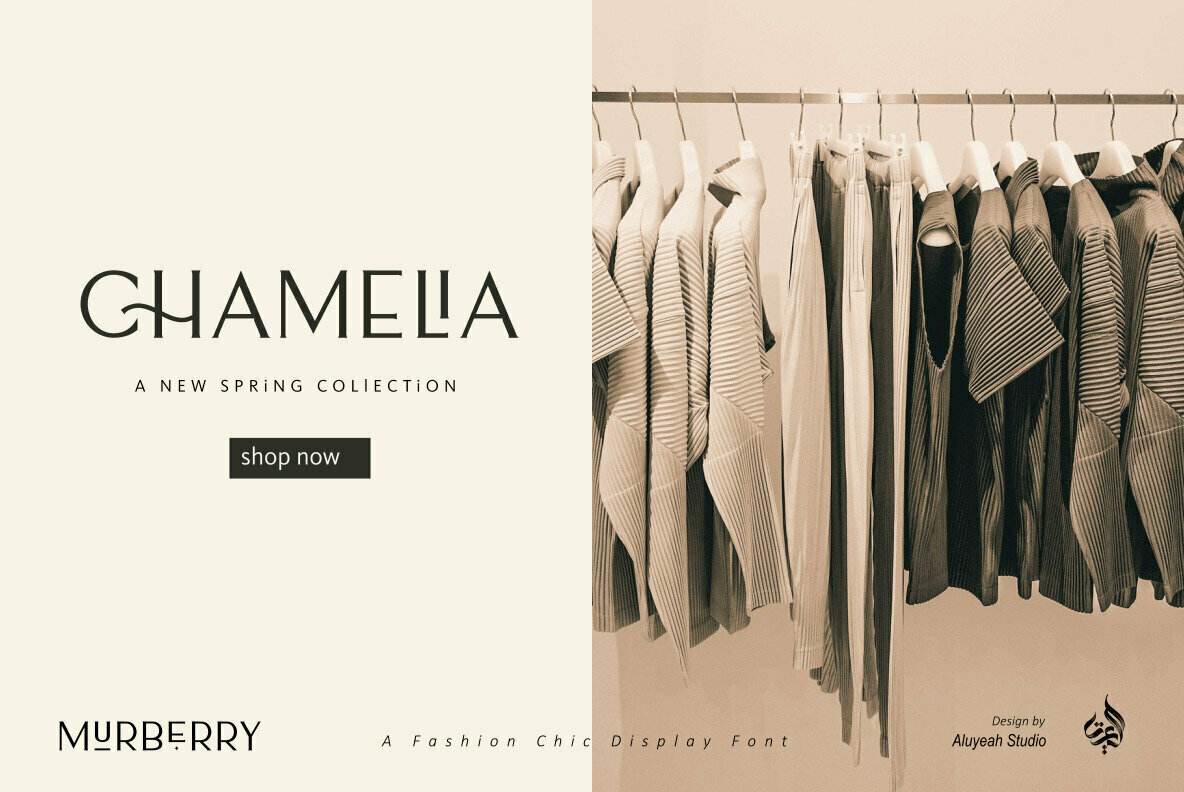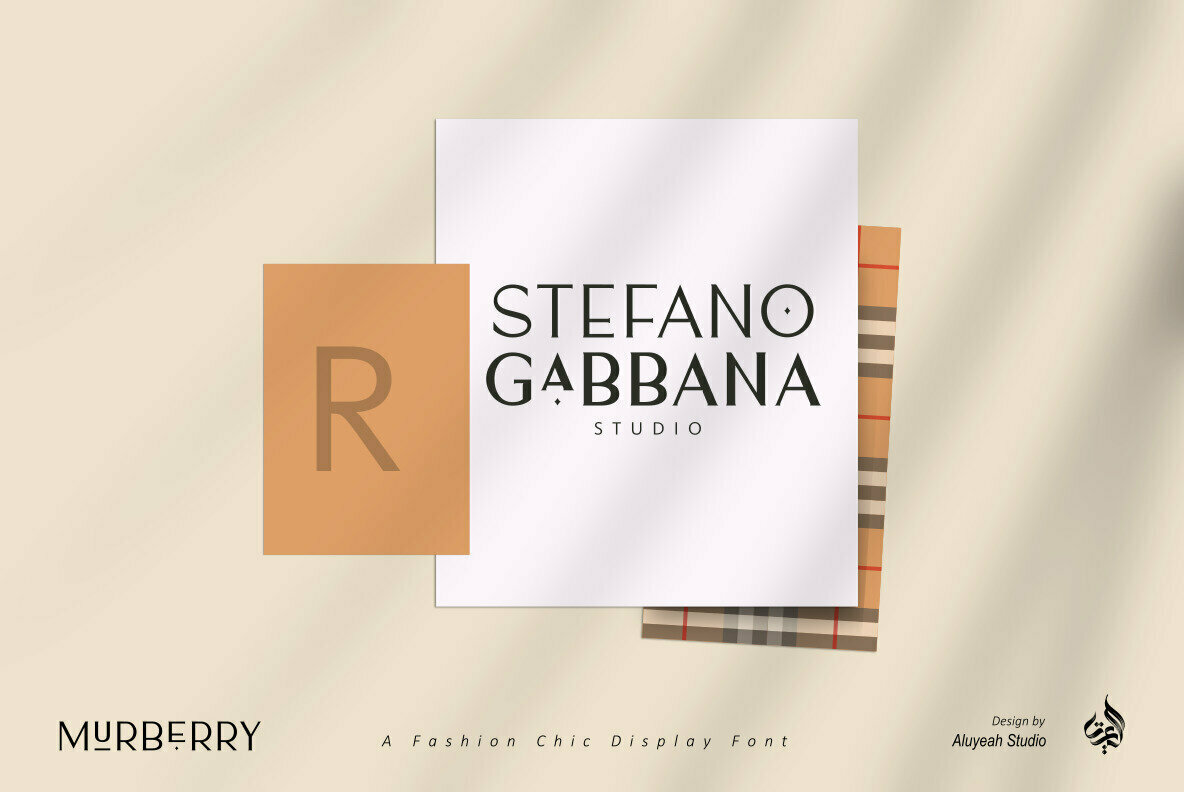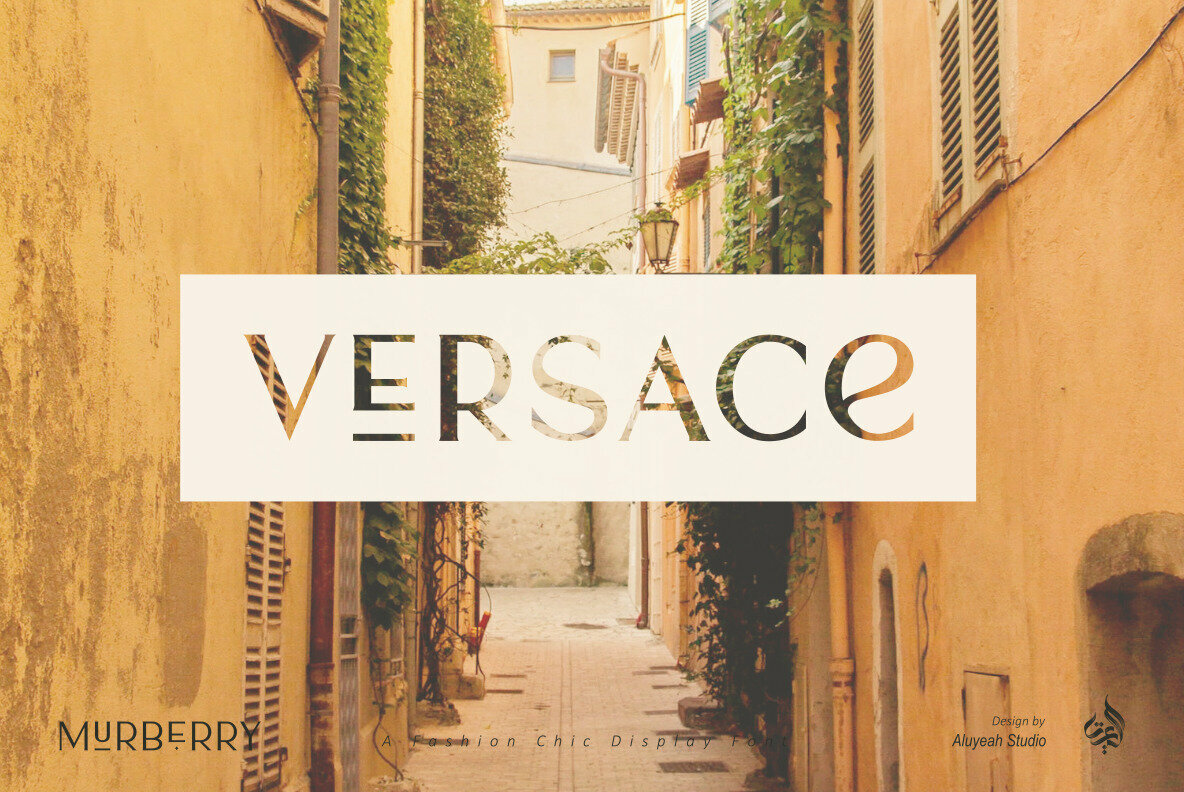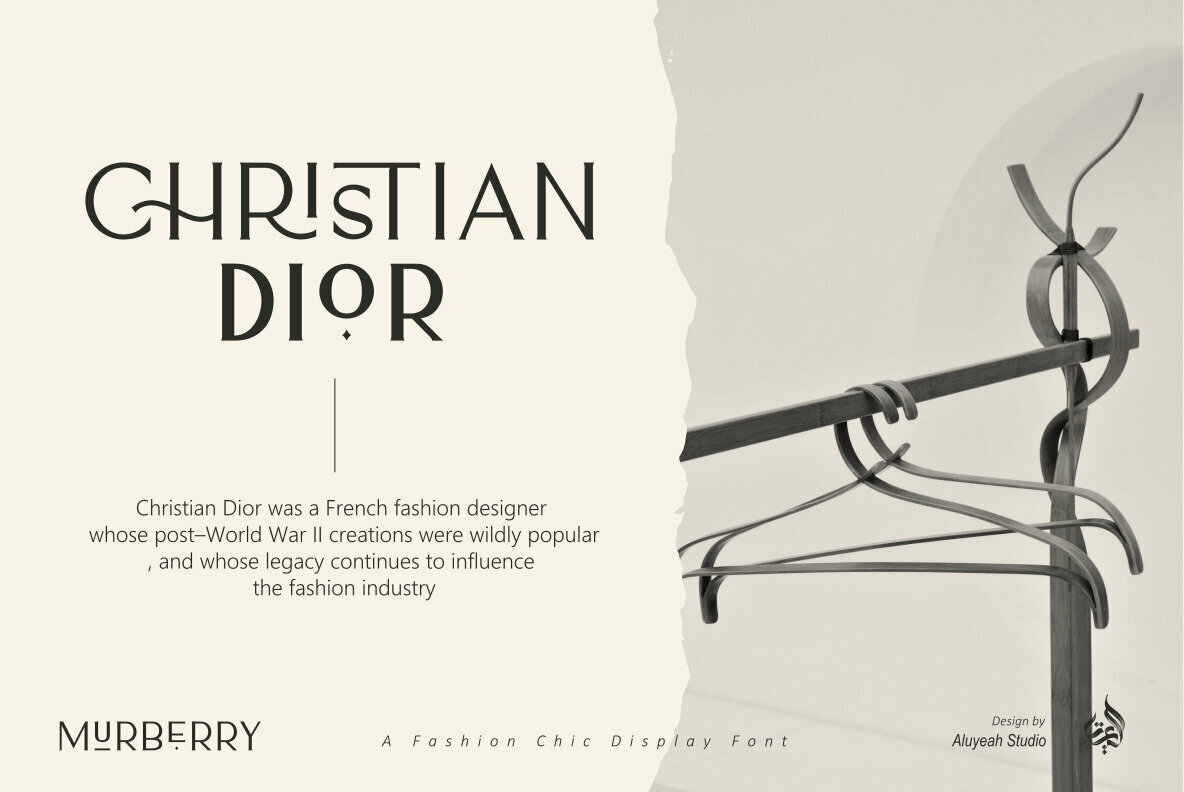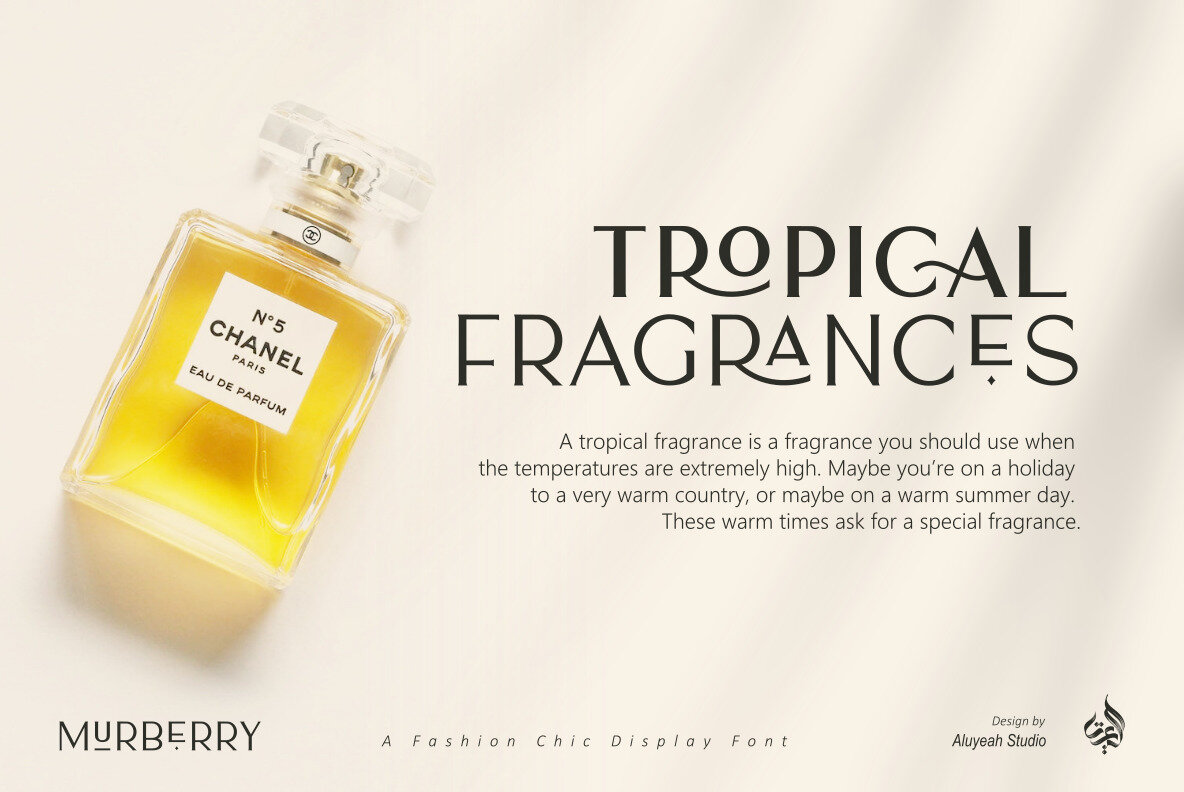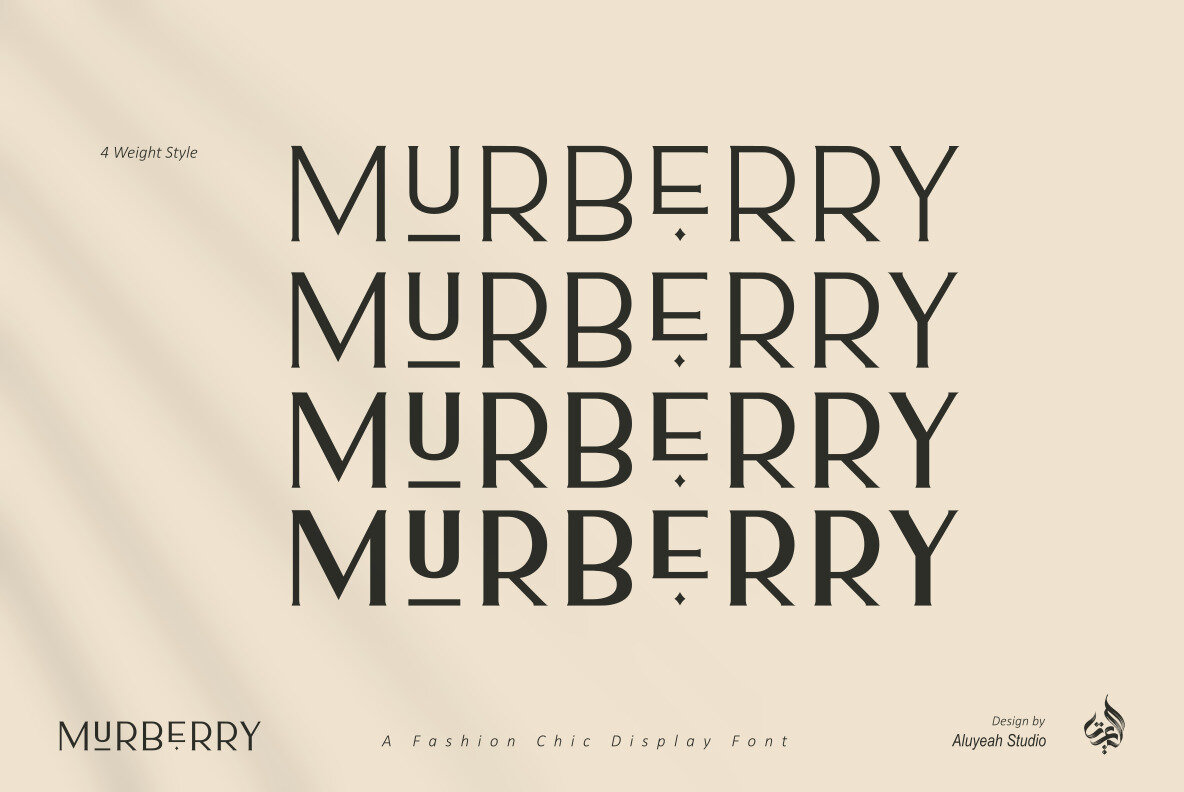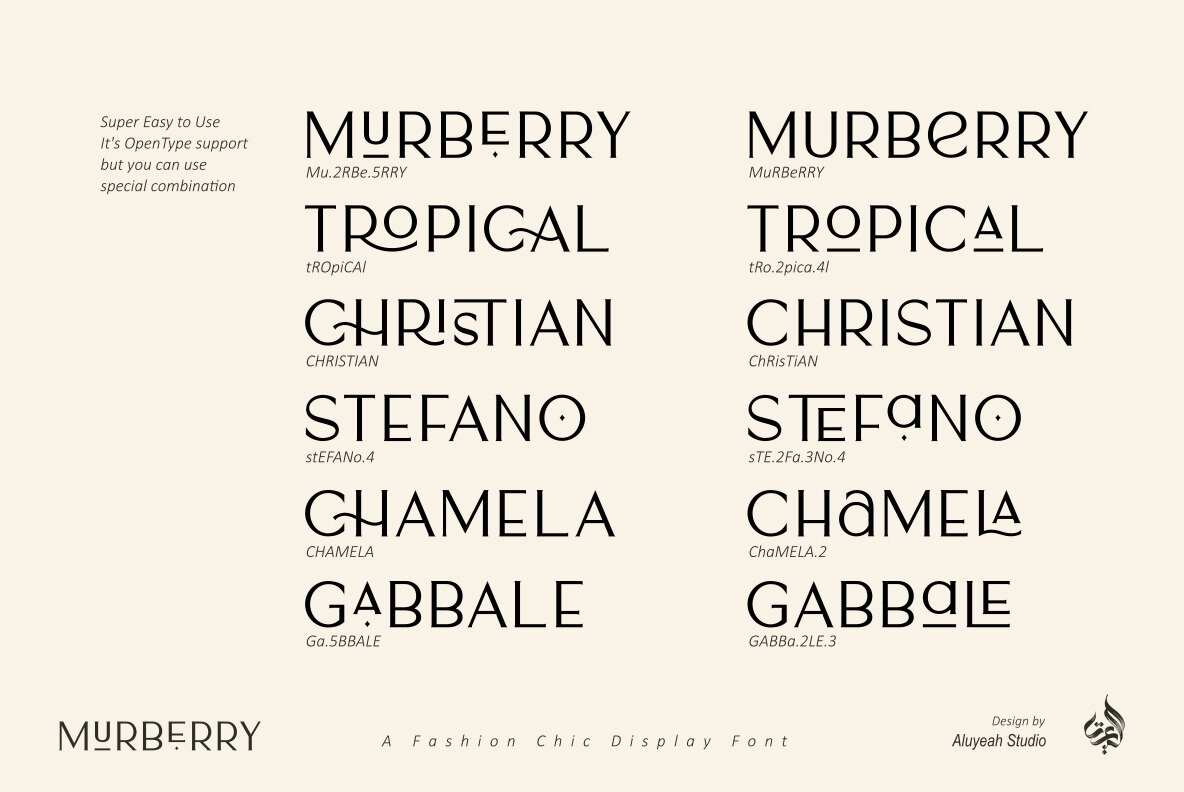
Murberry Font
Infuse your designs with luxury and sophistication using Murberry, a chic display font from Aluyeah Studio. Carefully crafted with influences from leading fashion brands, Murberry offers an elegant, high-end look suited to elevate any project into the realms of glamour and style. Murberry's comprehensive range includes over 50 luxury ligatures and 30 alternatives across four distinct weights: light, normal, medium, and bold. This versatility ensures a perfectly timeless appearance for fashion branding, cosmetic lines, boutique signage, or any creative endeavor craving a touch of class. Features:Murberry: Chic Display Font Inspired by Fashion
Murberry is ideal for a diverse range of applications including invitations, wedding branding, packaging, magazines, and much more, promising to capture attention with its sleek, luxurious charm.